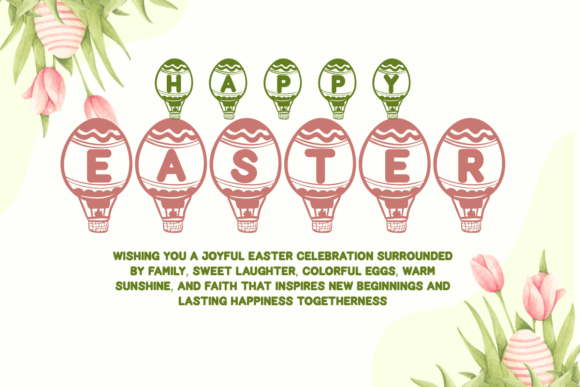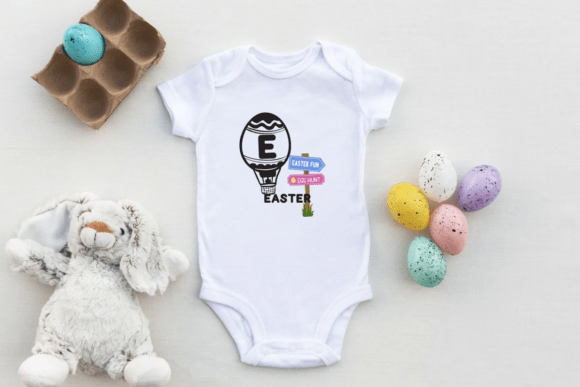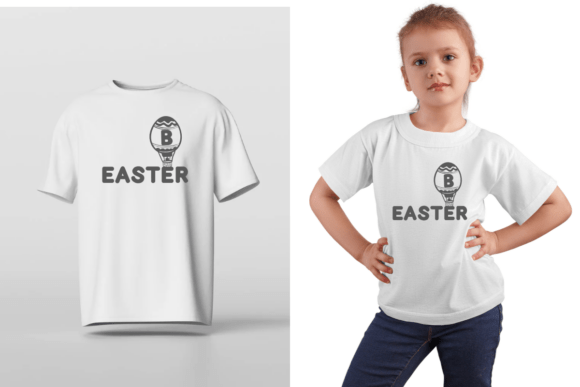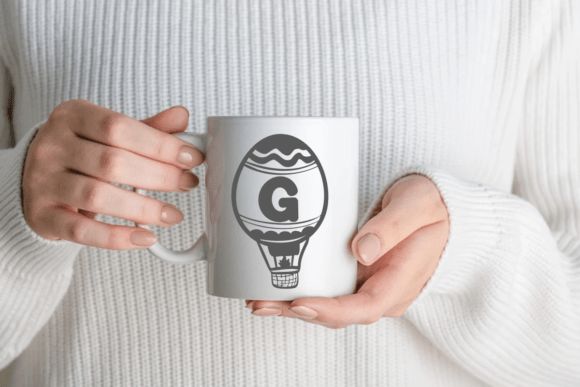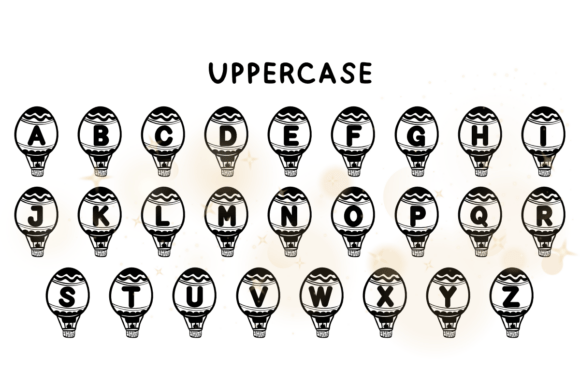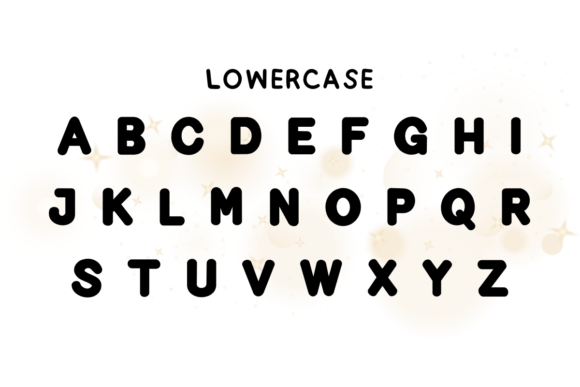
Introduction to Easter Egg Balloon Font
As a designer, I still get that rush of excitement when I stumble upon a unique and adorable design resource that makes my creative project pop. It’s like discovering a hidden treasure that instantly elevates the entire aesthetic. For me, that moment happened when I laid eyes on the Easter Egg Balloon Font – a playful, whimsical alphabet set that combines Easter eggs with hot air balloons in a delightful way.
This charming font is more than just a cute design element; it’s a valuable resource for designers, teachers, and crafters looking to add a touch of springtime magic to their projects. With its transparent background and high-quality design, the Easter Egg Balloon Font is perfect for creating eye-catching greeting cards, party invitations, and stickers that are sure to delight kids and adults alike.
Easter Egg Balloon Font
- Unique and playful design ideal for creative projects such as Easter cards, invitations, and advertisements.
- Designed to be versatile and adaptable, perfect for use in various design contexts, from digital to print media.
Honest Review: Easter Egg Balloon Font
- High-quality design that looks great on any background.
- Transparent background option makes it easy to customize.
- Fun and playful style perfect for Easter-themed projects.
- Wide range of uses, from digital to print designs.
- ⚠️ Limited font sizes and styles available.
- ⚠️ Not ideal for professional or formal projects.
Overall, I’m impressed with the Easter Egg Balloon Font. It’s a great resource for designers looking to add some whimsy to their work. The high quality and transparent background options make it a versatile choice for a variety of creative projects.
Getting the Most Out of Easter Egg Balloon Font
Use the Easter Egg Balloon Font in creative projects that require a high-quality, unique design element. This font is perfect for adding a playful touch to your designs. To get the most out of it, use a transparent background to ensure the font stands out.
The Easter Egg Balloon Font is ideal for:
- Birthday and Easter-themed designs
- Children’s party invitations and decorations
- Playful blog posts and social media graphics